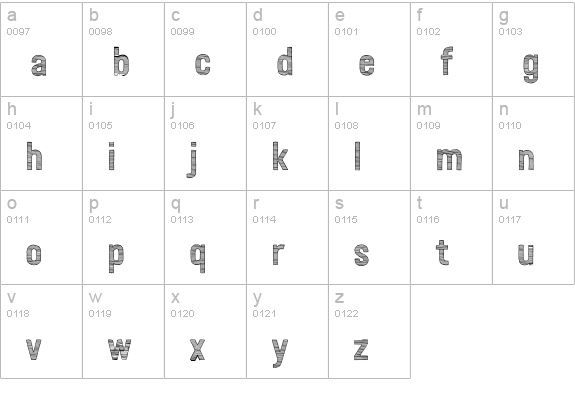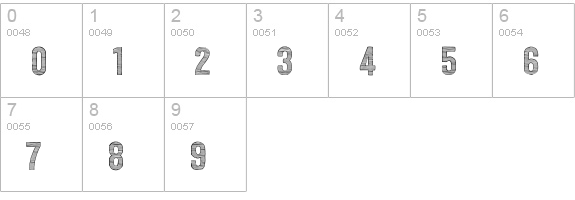
Festivo LC Sketch3 Font Details
Festivo LC Sketch3 is a stunning display font that exudes elegance and charm. Its intricate details and unique style make it perfect for adding a touch of sophistication to any design project. The font features exquisite hand-drawn letterforms with a playful yet refined appearance. What sets Festivo LC Sketch3 apart is its versatility - suitable for a wide range of design applications, from branding and packaging to invitations and social media graphics. This font will surely elevate your creations and captivate your audience with its artistic flair. Best of all, Festivo LC Sketch3 is available for free download at FontsMarket.com. Take advantage of this amazing opportunity to add this exquisite font to your collection and unleash your creativity with its limitless possibilities. Download Festivo LC Sketch3 today and let your designs shine!